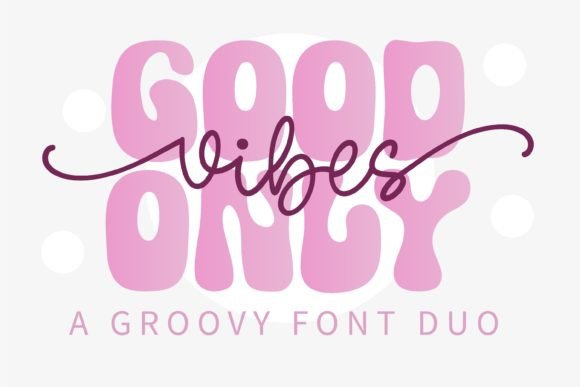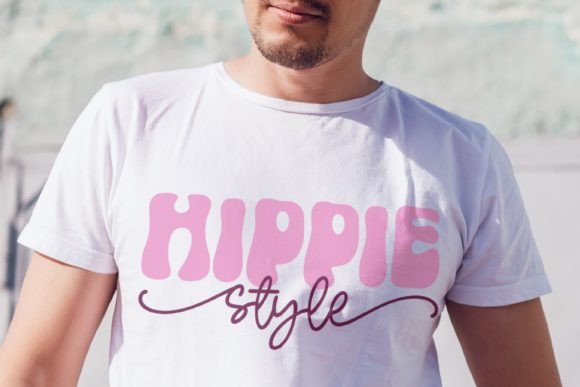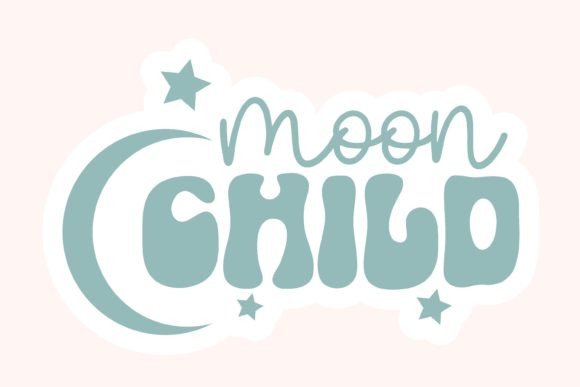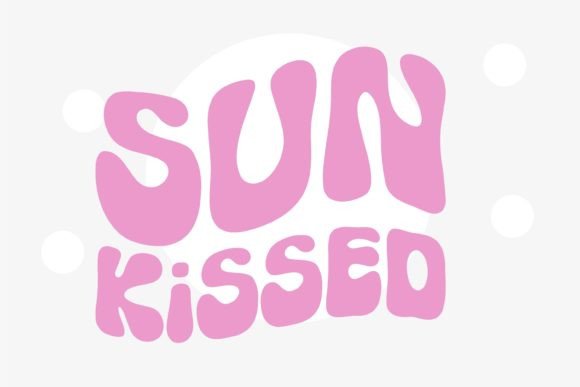
Good Vibes Only Duo Font
About the Good Vibes Only Duo Font
The wait is over! The incredible Good Vibes Only Duo Font is now available for your design toolkit. Good Vibes Only is a cool retro duo font (display and monoline script). It is perfect for any hippie design that requires a groovy look and it’s guaranteed to make an impact.
This duo font excels in display applications such as logos, posters, and short headlines where its retro style makes a strong visual statement. It’s ideal for projects with a 70s-inspired aesthetic, brands emphasizing positivity and a carefree attitude, or packaging designs targeting a younger demographic. Avoid using it for body text or lengthy paragraphs; the script’s decorative nature hinders readability in extended use.
Good Vibes Only pairs well with clean sans-serif fonts like Futura or Open Sans for a balanced contrast, or a geometric sans-serif like Bebas Neue for a bolder, more modern feel. Consider pairing the display font with a simple serif like Playfair Display for a touch of classic elegance, or a more playful script like Pacifico to enhance the retro vibe.
The overall personality is cheerful and retro, conveying a sense of optimism and nostalgia. Its bold, yet slightly informal style is perfect for brands wanting to project a friendly, approachable, and slightly rebellious image.